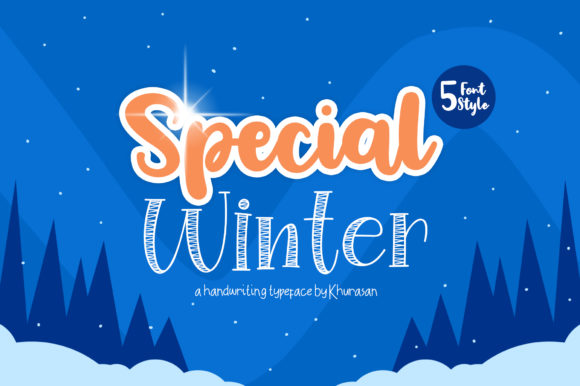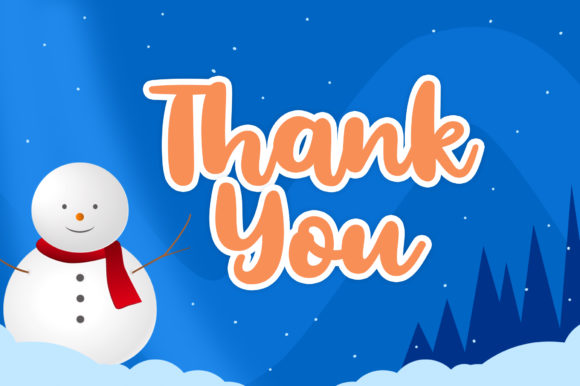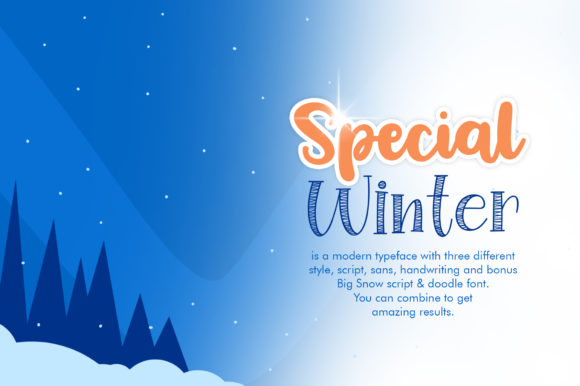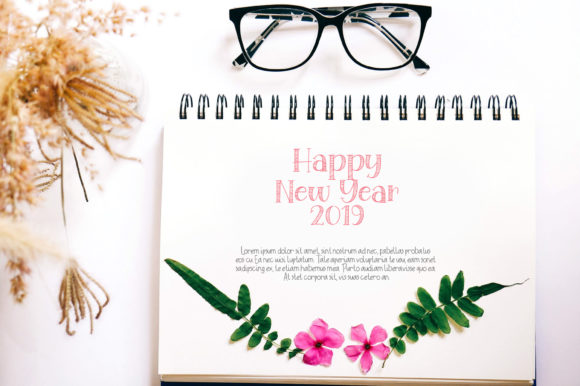
About Special Winter Family Font
Introducing “The Special Winter,” a delightful five-font collection designed to add fun and uniqueness to your designs. This font set is not just a typeface; it’s a versatile design resource featuring three styles that can be combined to create several unique designs. As a bonus, the package includes a fun doodle vector to enhance your creative projects.
“The Special Winter” stands out with its three distinct styles, offering flexibility and creativity in your design endeavors. Whether you’re working on holiday cards, posters, branding, or any project that demands a touch of fun, this font collection delivers with its playful and varied styles.
The three included styles allow you to mix and match, creating a wide range of visual effects. From a classic and clean look to a more whimsical and decorative appearance, “The Special Winter” provides the tools for diverse and eye-catching designs.
As a bonus, the included fun doodle vector adds an extra layer of creativity to your projects. Use it to complement your typography or as standalone elements to bring a lighthearted touch to your designs.
In summary, “The Special Winter” is more than just a font collection; it’s a design asset that offers versatility and creativity. Embrace its three styles for various applications, and explore the added bonus of a fun doodle vector to enhance your designs with a playful and festive spirit.